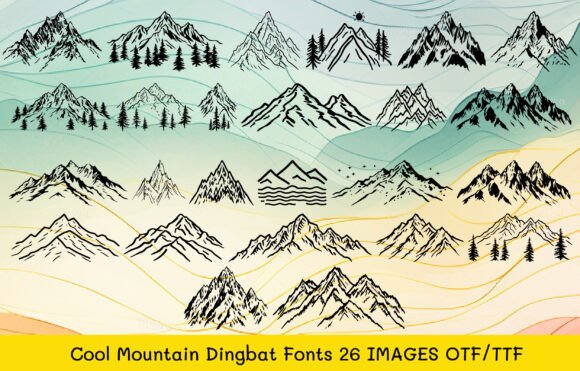
Cool Mountain Font: Elevate Your Designs with Nature-Inspired Creativity
Are you looking for a unique and creative way to add a touch of the great outdoors to your designs? Look no further than the Cool Mountain Font, a set of 26 stunning mountain-themed dingbats fonts that bring the beauty of nature to your projects. In this article, we’ll explore the features and benefits of this amazing font, and show you how to use it to take your designs to the next level.
What is Cool Mountain Font?
Cool Mountain Font is a set of 26 unique mountain-themed dingbats fonts, each corresponding to a letter from A to Z. These fonts are designed to bring a touch of the great outdoors to your projects, with intricate and detailed designs that showcase the beauty of the mountains. From majestic peaks to serene landscapes, each font is carefully crafted to evoke the sense of adventure and freedom that comes with exploring the great outdoors.
Features of Cool Mountain Font
So, what makes Cool Mountain Font so special? Here are just a few of the features that set it apart:
- 26 unique designs: Each font corresponds to a letter from A to Z, giving you 26 unique designs to work with.
- Mountain-themed: From peaks to valleys, each design is inspired by the beauty of the mountains.
- Perfect for outdoor-themed designs: Whether you’re working on a project for an outdoor gear company or a travel brochure, Cool Mountain Font is the perfect choice.
Uses for Cool Mountain Font
So, what can you use Cool Mountain Font for? The possibilities are endless! Here are a few ideas to get you started:
- Outdoor-themed designs: Use Cool Mountain Font to add a touch of the great outdoors to your designs, whether you’re working on a project for an outdoor gear company or a travel brochure.
- Adventure branding: Create a bold and adventurous brand identity with Cool Mountain Font.
- Scrapbooking: Add a personal touch to your scrapbook pages with Cool Mountain Font.
- Stationery: Use Cool Mountain Font to create custom stationery that’s perfect for outdoor enthusiasts.
Benefits of Using Cool Mountain Font
So, why should you choose Cool Mountain Font for your next project? Here are just a few of the benefits:
- Unique and creative: Cool Mountain Font adds a touch of creativity and uniqueness to your designs.
- Versatile: Cool Mountain Font can be used for a wide range of projects, from outdoor-themed designs to scrapbooking.
- High-quality: Each font is carefully crafted to ensure high-quality designs that will impress your clients or audience.
Tips and Tricks
Here are a few tips and tricks to help you get the most out of Cool Mountain Font:
- Experiment with different colors: Try out different colors and combinations to find the perfect look for your design.
- Mix and match: Combine Cool Mountain Font with other fonts and design elements to create a unique look.
- Use it for headlines: Cool Mountain Font is perfect for headlines and titles, adding a touch of creativity and flair to your designs.
Cool Mountain Font is a unique and creative way to add a touch of the great outdoors to your designs. With 26 stunning mountain-themed dingbats fonts, each corresponding to a letter from A to Z, this font is perfect for outdoor-themed designs, adventure branding, scrapbooking, and more. Whether you’re a designer, artist, or DIY enthusiast, Cool Mountain Font is sure to inspire your creativity and take your designs to the next level.